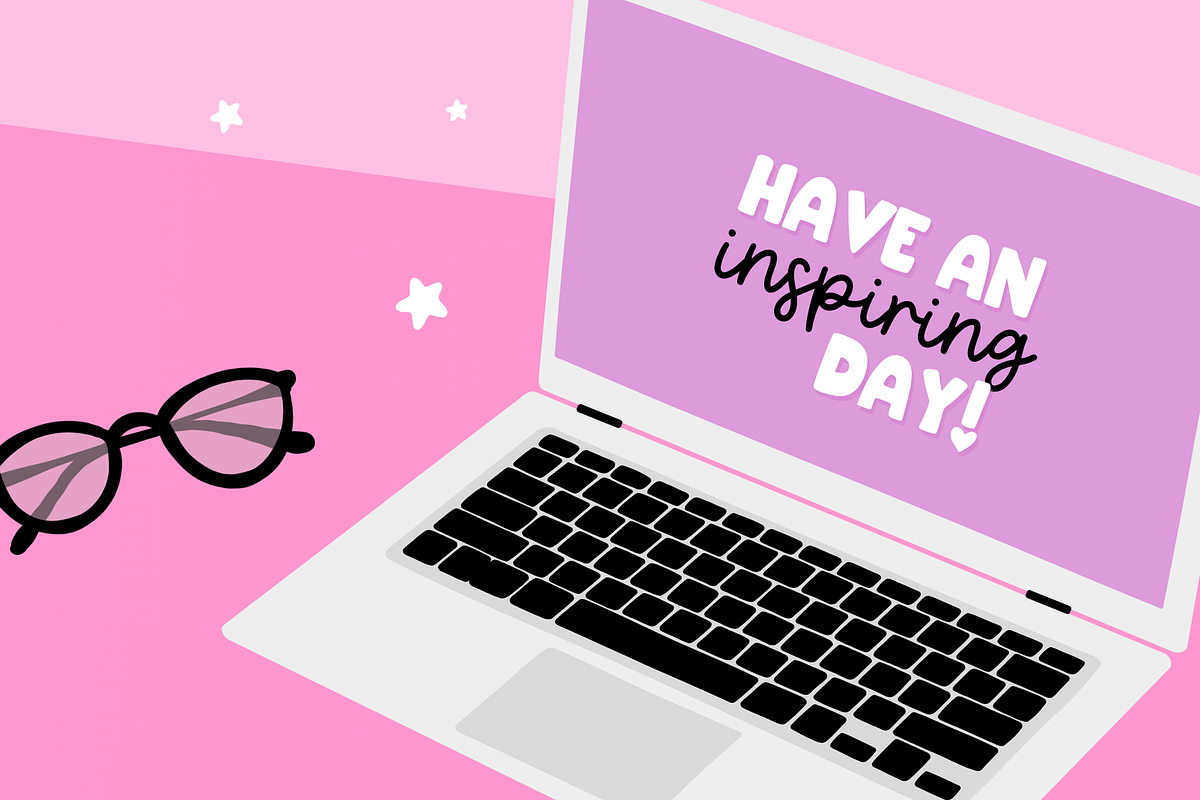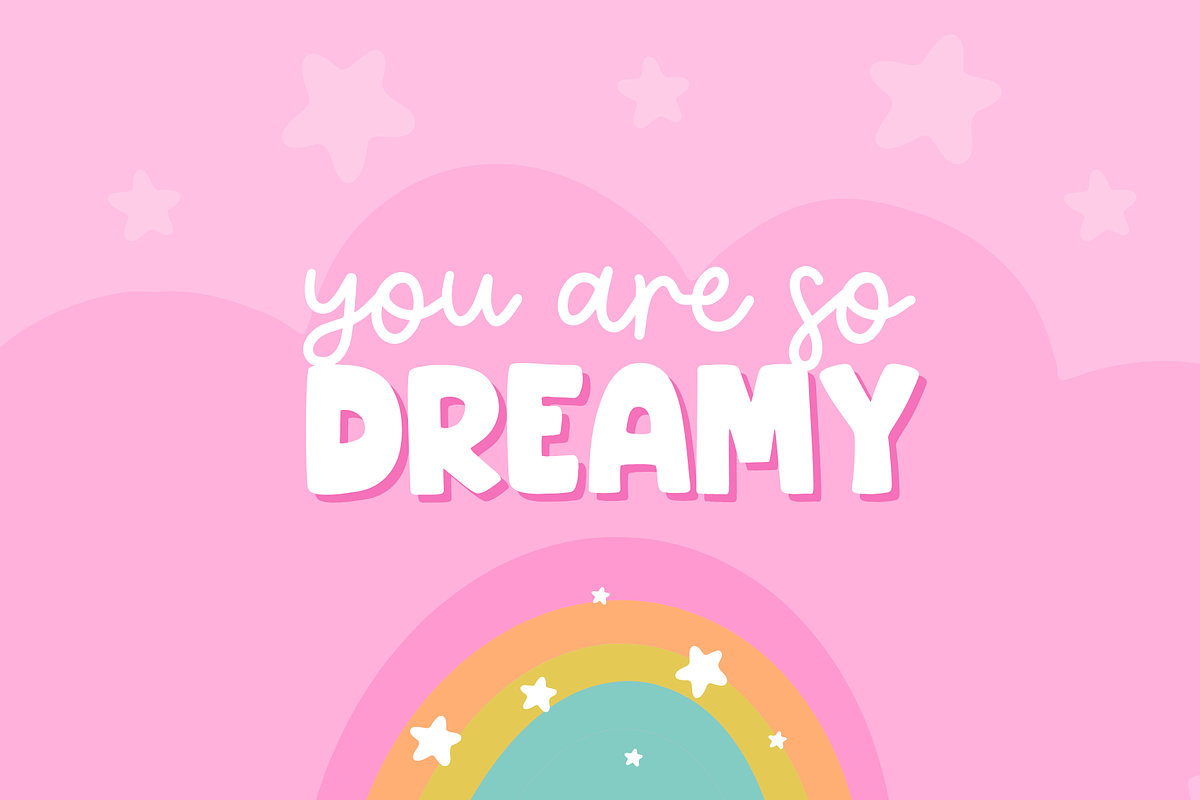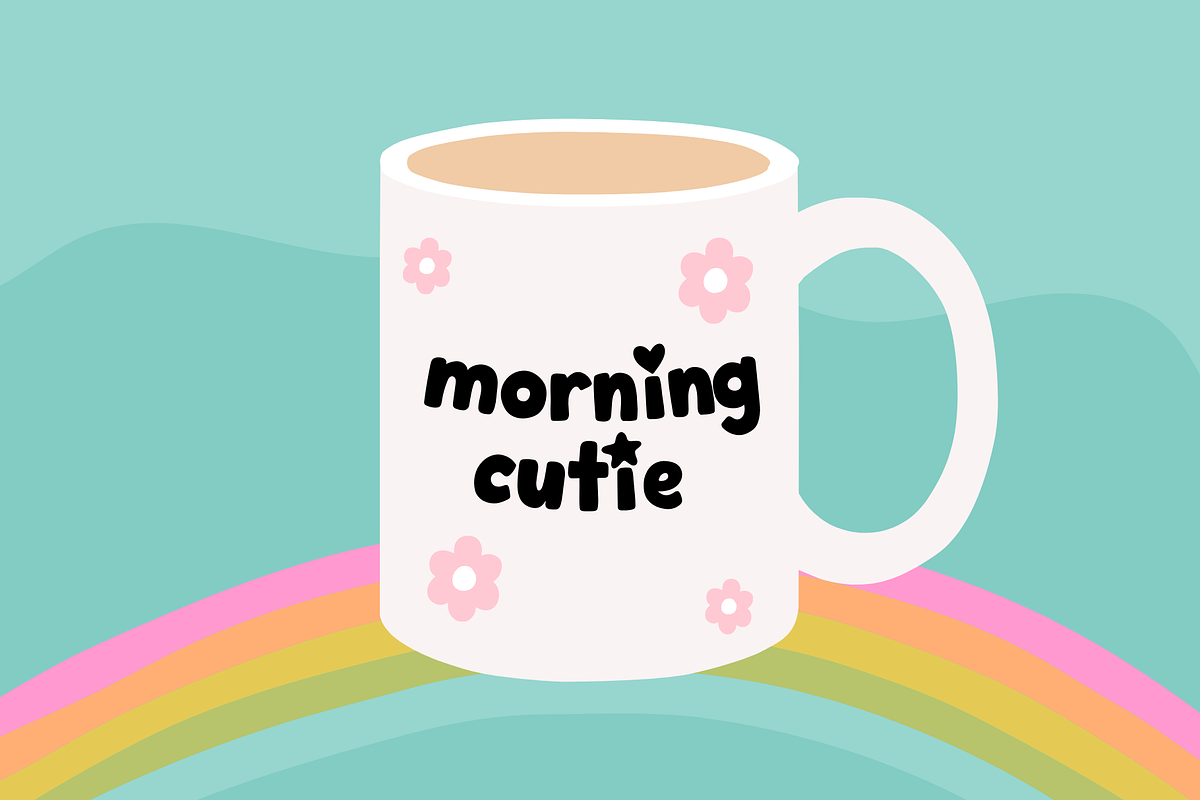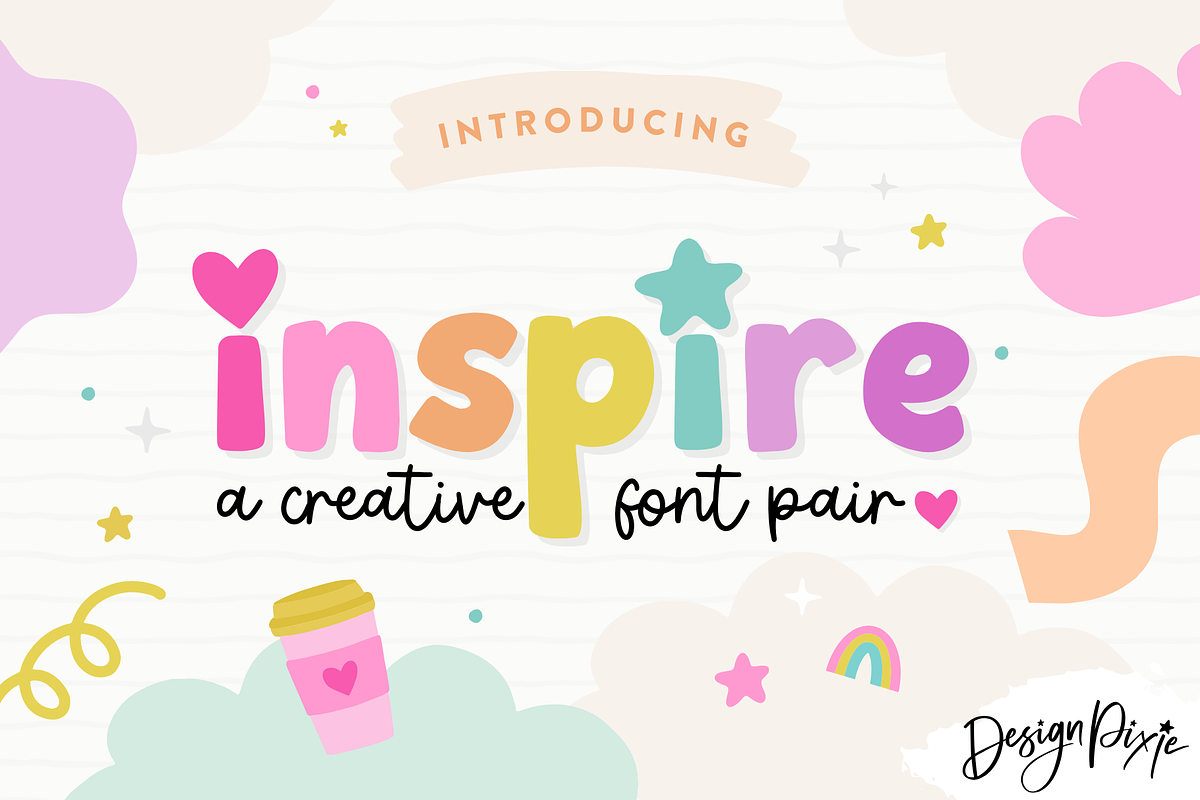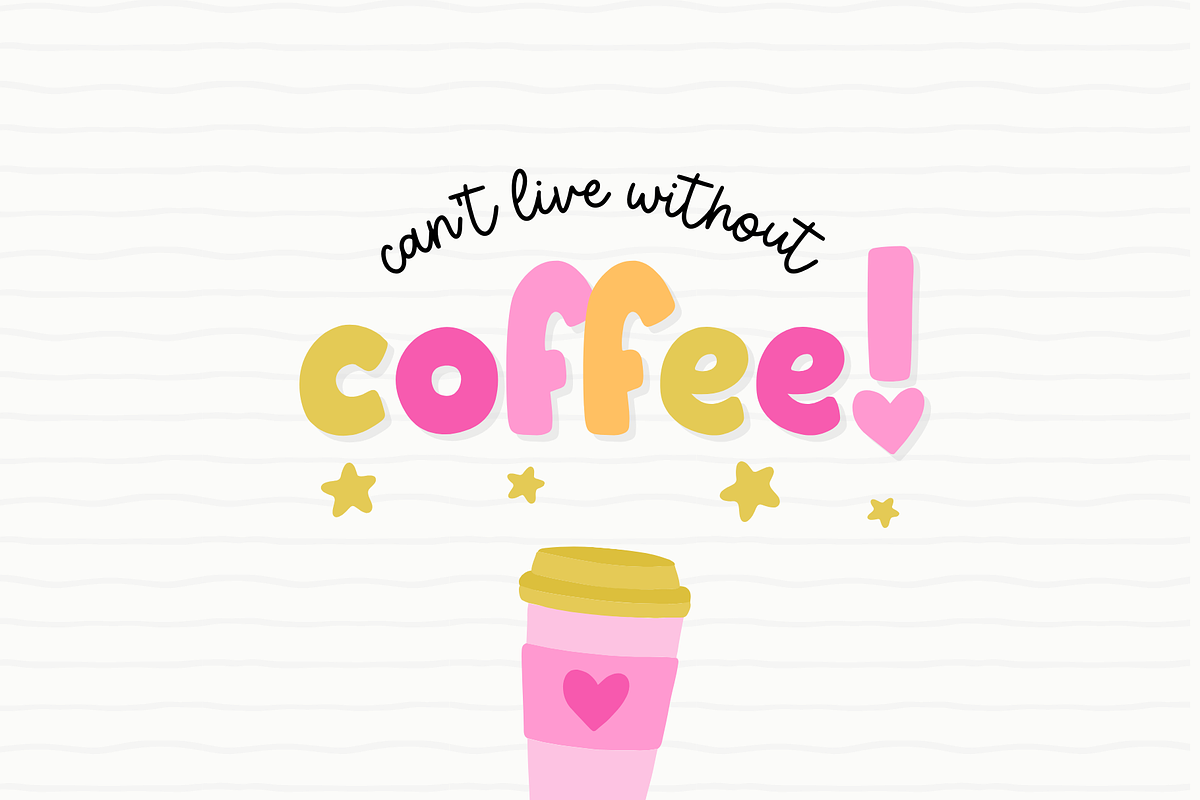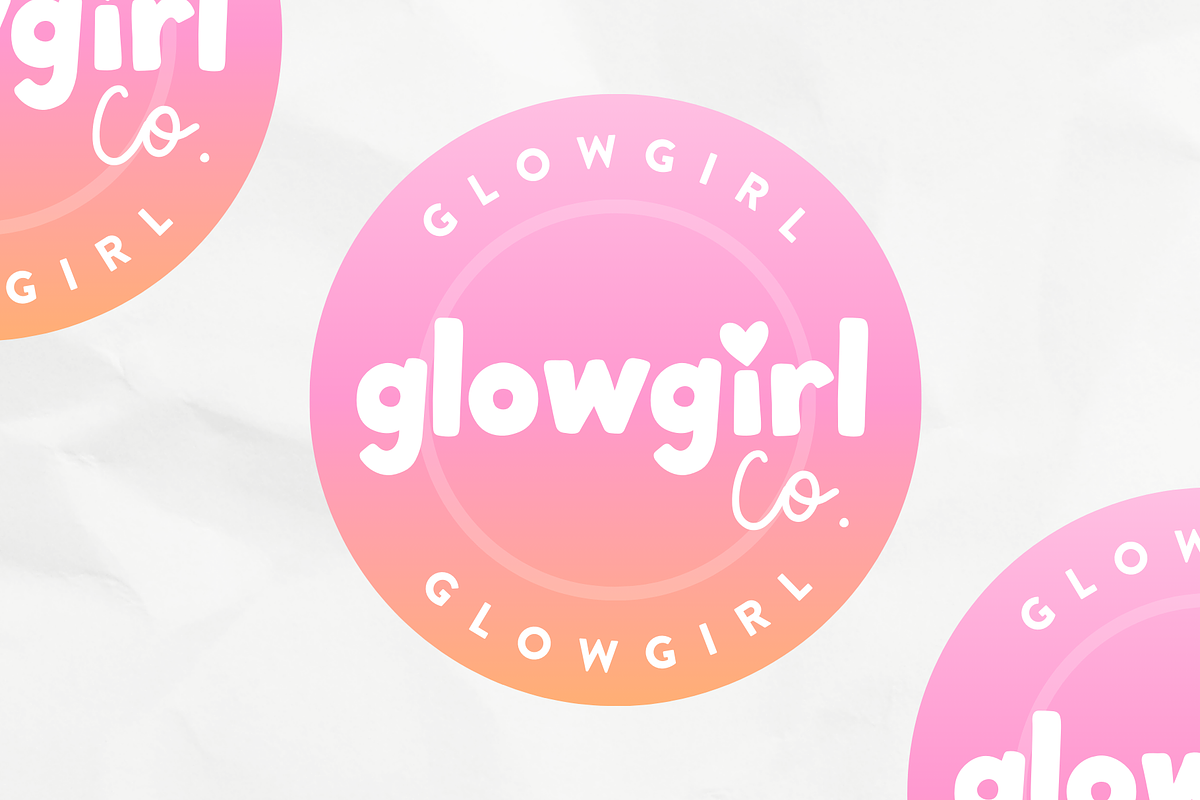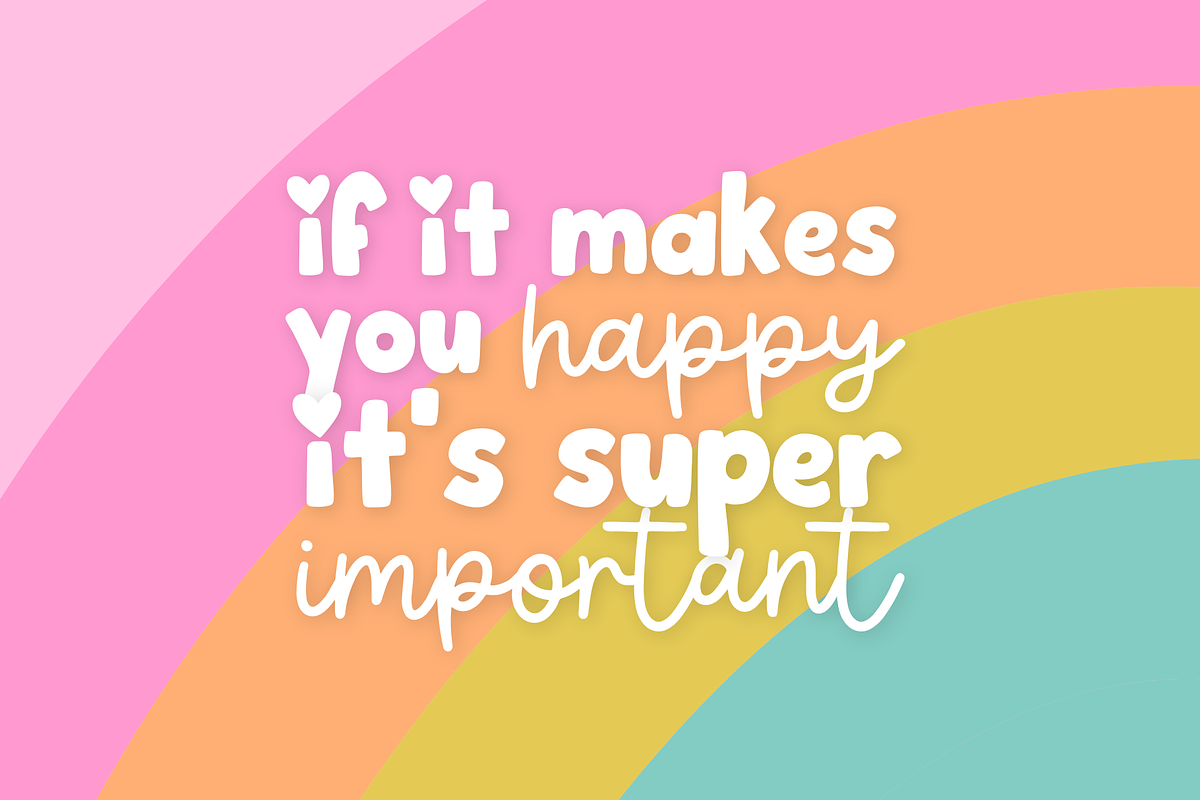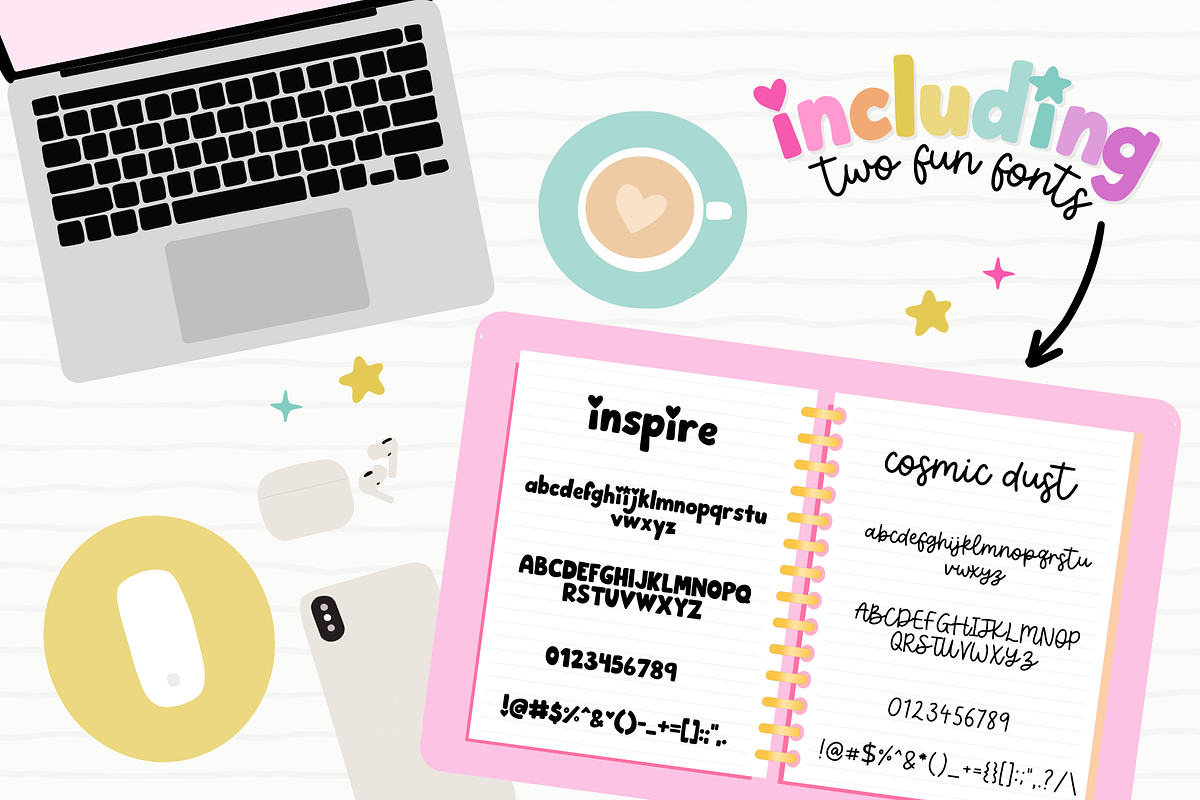
Inspire Font Pair
Introducing Inspire and Cosmic Dust, a handwritten font pair to add charm and personality to your next creative project. These two playful fonts combine seamlessly, giving your designs a fun, custom look with a sprinkle of whimsy.
Inspire Font:
A bold, cute handwritten font that stands out with its playful details. Personalize your text by choosing between a heart or star on the dot of the "i," making your designs truly unique. Perfect for greeting cards, social media graphics, and personalized gifts that need a pop of fun and creativity.
Cosmic Dust Font:
A handwritten monoline script font with a bouncy, quirky feel. Its playful curves make it the perfect complement to Inspire, adding balance and charm to any design. Ideal for pairing with bold fonts in logos, quotes, and creative projects.